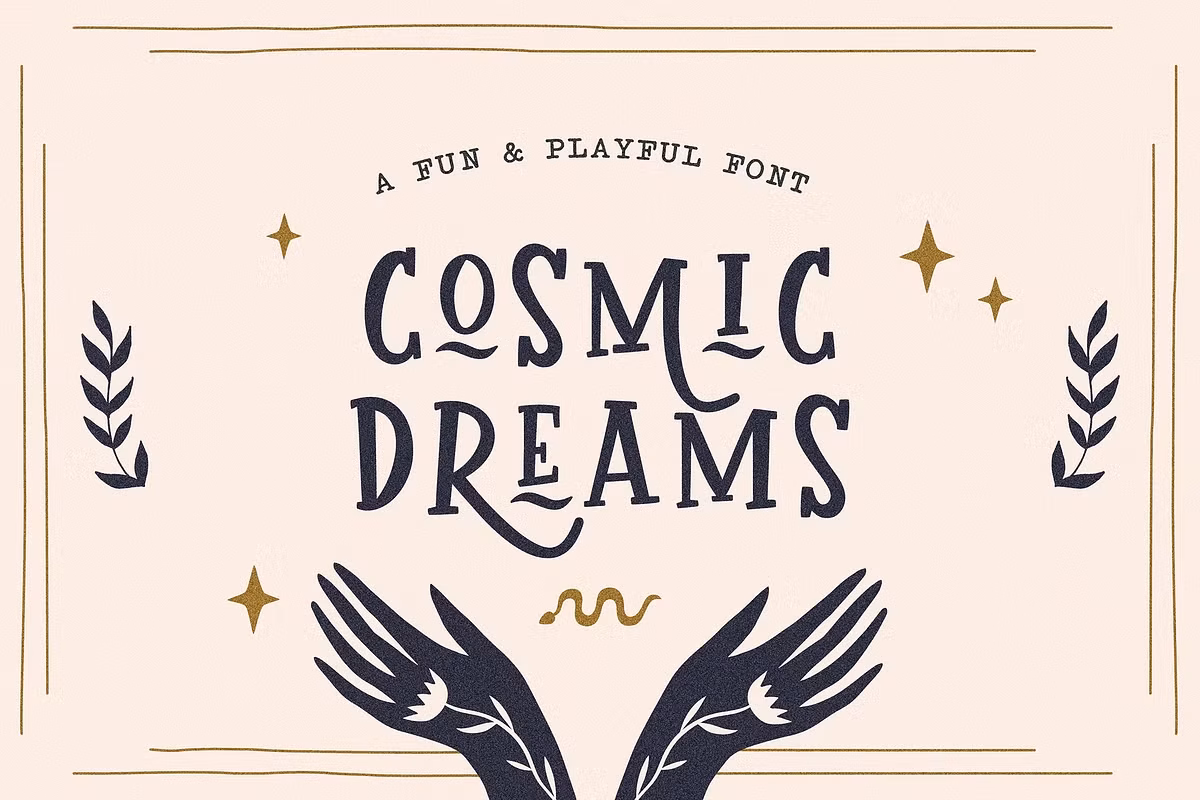
COSMIC DREAMS Font Free Download is a stunning, modern typeface that captures the ethereal beauty of the cosmos with its unique, otherworldly design. Featuring flowing lines, soft curves, and a futuristic feel, this font is perfect for projects that evoke a sense of wonder, mystery, and space exploration. Ideal for album covers, posters, branding, social media graphics, and anything related to fantasy, sci-fi, or the cosmos, COSMIC DREAMS gives your design an out-of-this-world touch.
Whether you’re working on a dreamy event invitation, creating a sci-fi-themed graphic, or designing a celestial brand, this font brings an enchanting and imaginative vibe to your typography.